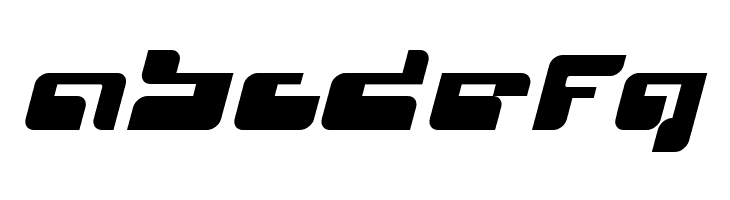
Decipher PERSONAL USE Regular Font
- Font: Decipher PERSONAL USE Regular
( Fonts by www.koenhachmang.com - Glitch )
A bold, futuristic font with geometric, block-like characters and a dynamic slant.